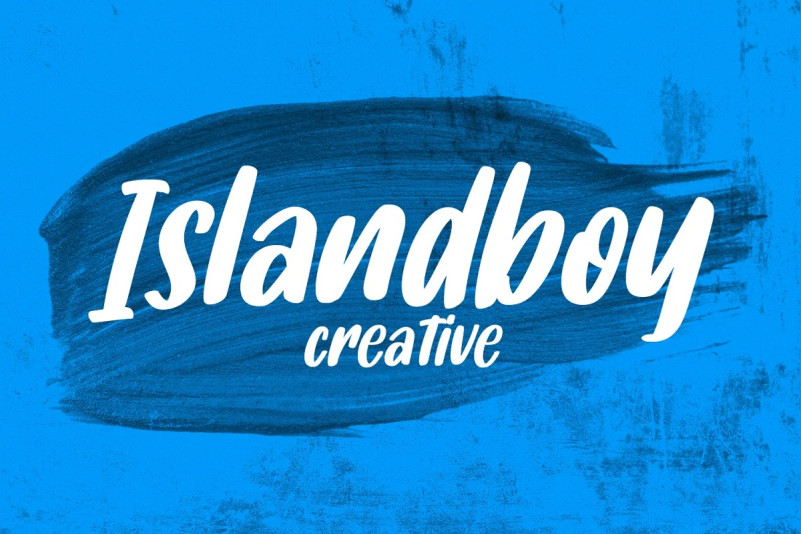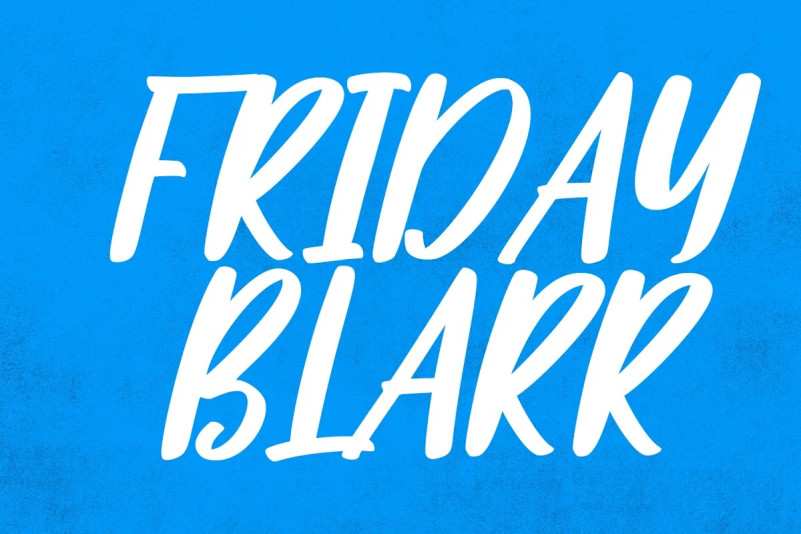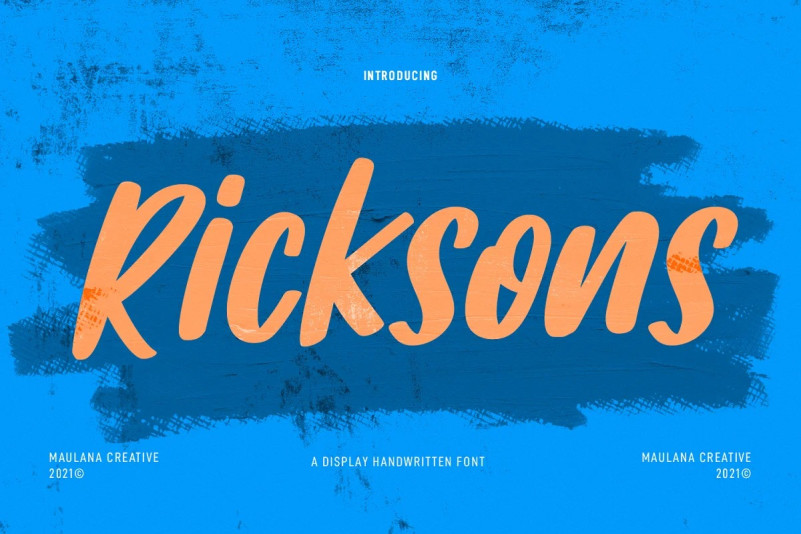
Ricksons Font
Ricksons Font is a casual Handwritten font. With Bold contrast stroke, fun character with some of ligatures. To give you an extra creative work. Ricksons font support multilingual more than 100+ language. This font is good for logo design, Social media, Movie Titles, Books Titles, a short text even a long text letter and good for your secondary text font with sans or serif. Make a stunning work with Ricksons font.